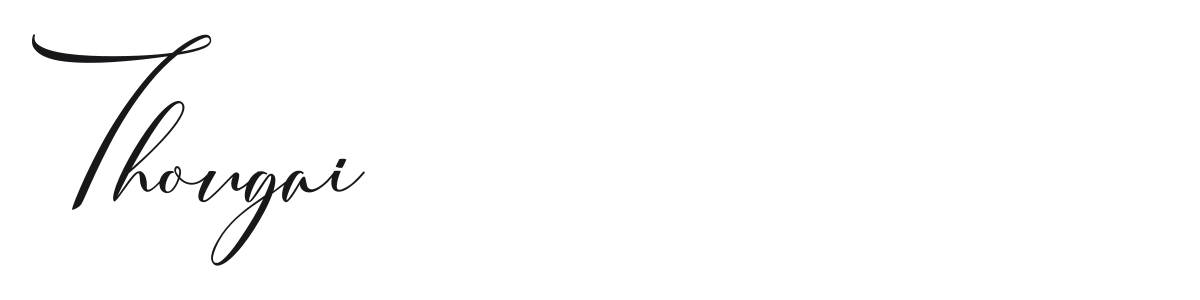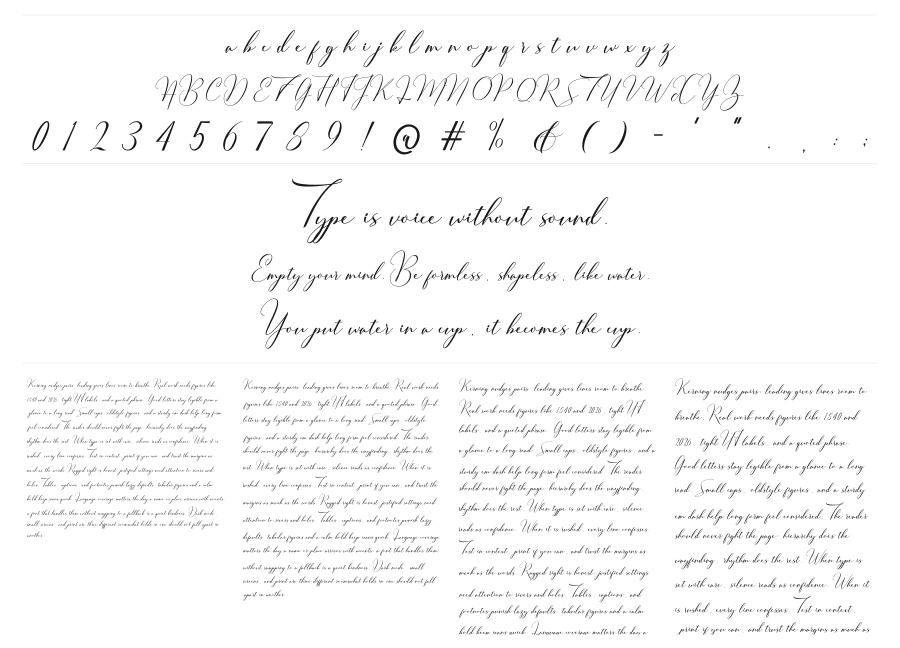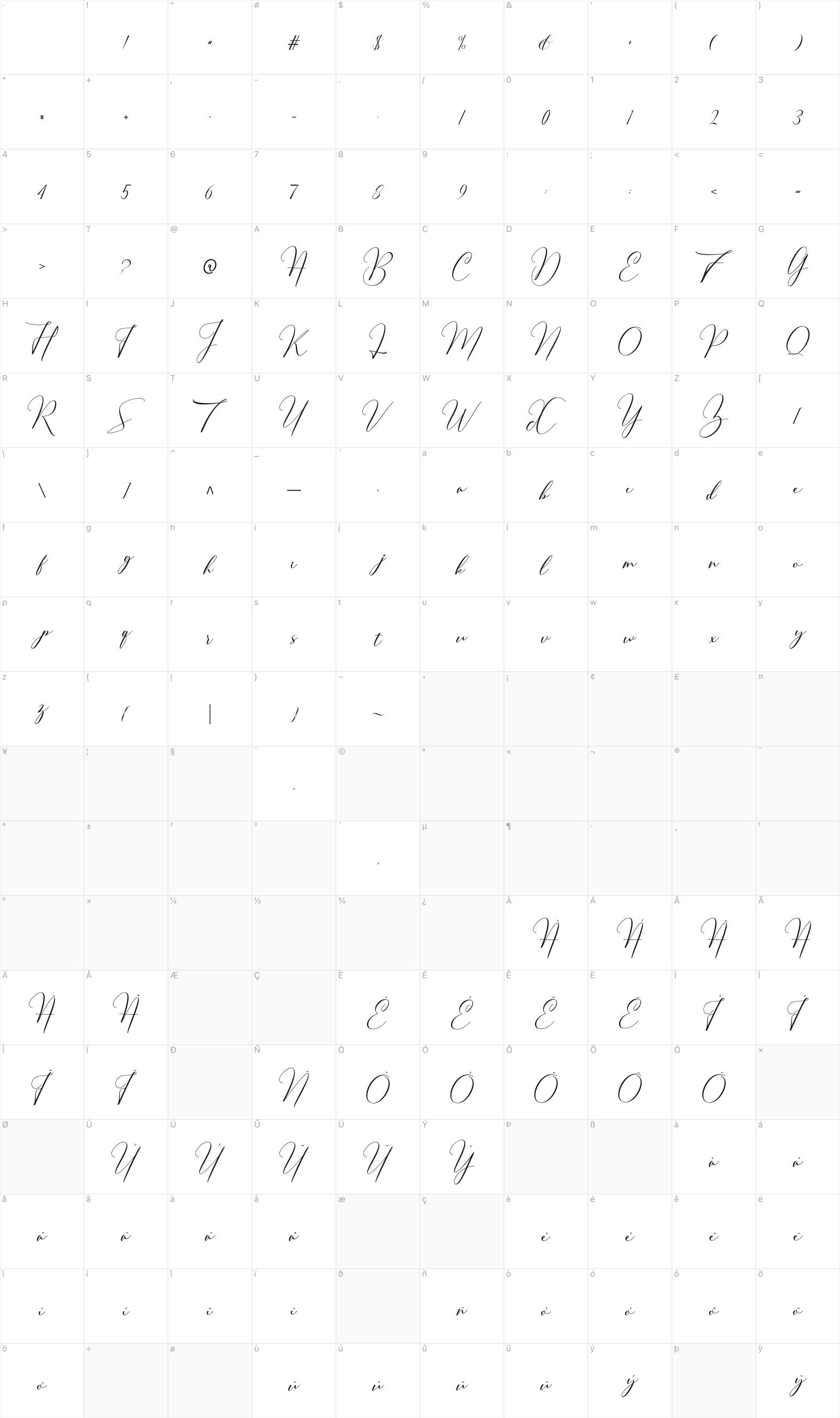
Thougai
Thougai is a modern casual script from Danti Studio, drawn with a naturally flowing hand and graceful calligraphic rhythm. Long looping ascenders and descenders give it a breezy, uninhibited energy that sits comfortably between formal elegance and everyday warmth. It reads beautifully at large display sizes for wedding stationery, branding, and lifestyle packaging.